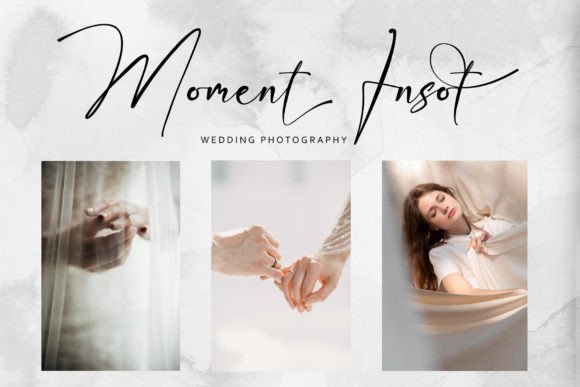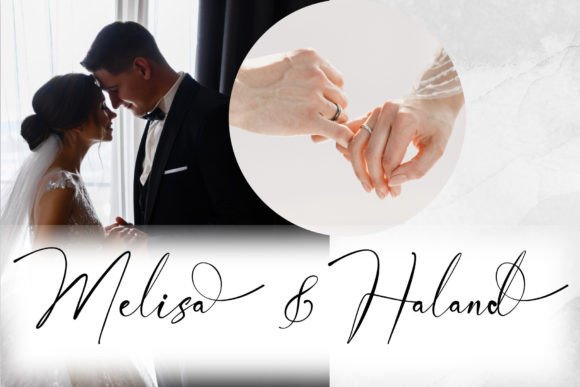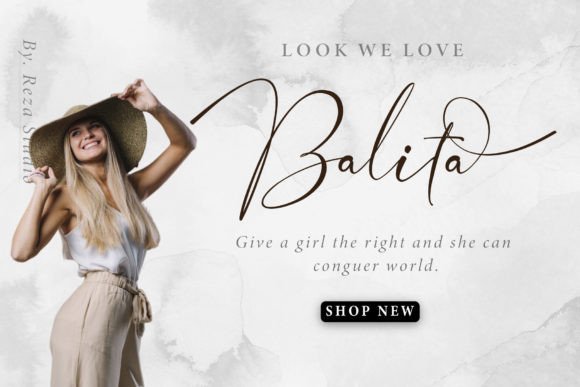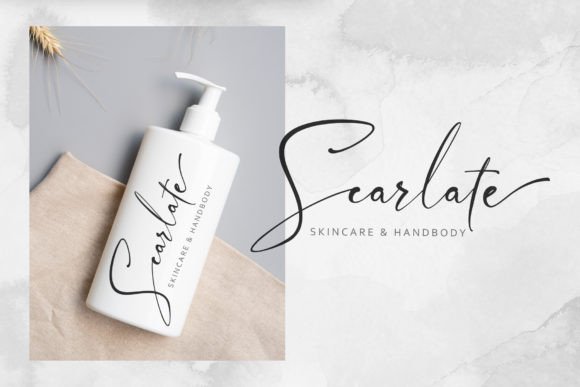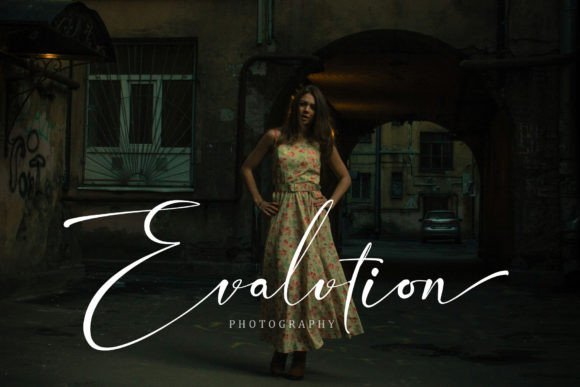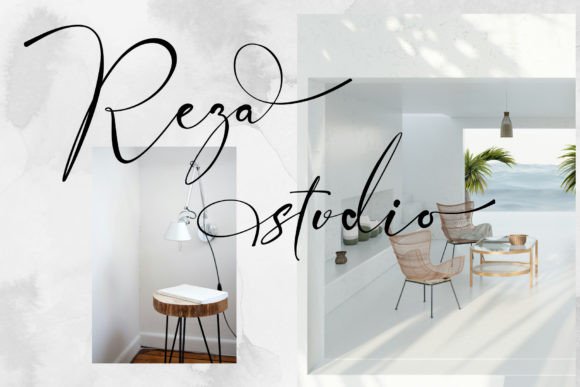
Introducing Britton Font: The Perfect Organic Handwritten Font for Your Creative Projects
In the world of typography, a good font can make all the difference in the success of a design project. Whether you’re a professional designer, crafty DIY enthusiast, or small business owner, finding the right font can elevate your branding, marketing materials, and overall visual identity. That’s where Britton Font comes in – an organic handwritten font that is modern, simple, and authentic.
What is Britton Font?
Britton Font is a unique and versatile typeface that is perfect for a wide range of applications, including branding, signature, wedding invitations, promotions, product packaging, and more. Its organic and handwritten nature gives it a personal touch that is sure to capture the attention of your audience. The font’s simplicity and modernity make it an excellent choice for designers and crafters looking for a clean and elegant look.
Key Features of Britton Font
- Organic and Handwritten: Britton Font has a natural, hand-crafted feel that sets it apart from more traditional fonts.
- Modern and Simple: Despite its organic nature, Britton Font has a sleek and contemporary look that will complement any design.
- Authentic: The font’s unique character and charm make it perfect for brands and designers looking to add a personal touch to their work.
- Versatile: Britton Font can be used for a wide range of projects, from branding and marketing materials to wedding invitations and product packaging.
Why Choose Britton Font?
With so many fonts available, why choose Britton Font for your next project? Here are just a few reasons:
- Unique and Memorable: Britton Font’s distinctive look will help your brand or design stand out from the crowd.
- Easily Readable: Despite its handwritten nature, Britton Font is clear and easy to read, making it perfect for body text and headlines.
- Flexible: Britton Font can be used in a variety of contexts, from digital media to print materials.
- High-Quality: Britton Font is a professionally designed typeface, ensuring a high level of quality and craftsmanship.
How to Use Britton Font in Your Design Projects
Britton Font is incredibly versatile and can be used in a wide range of design projects. Here are a few ideas to get you started:
- Branding and Logo Design: Use Britton Font to create a unique and memorable logo for your brand.
- Wedding Invitations and Stationery: Add a personal touch to your wedding invitations, stationery, and other paper goods with Britton Font.
- Product Packaging: Use Britton Font to create eye-catching and distinctive product packaging that stands out on store shelves.
- Marketing Materials: Incorporate Britton Font into your marketing materials, such as brochures, flyers, and posters, to add a touch of personality and whimsy.
In conclusion, Britton Font is a unique and versatile typeface that is perfect for designers, crafters, and small business owners looking for a modern, simple, and authentic font. Its organic and handwritten nature makes it perfect for a wide range of applications, from branding and marketing materials to wedding invitations and product packaging. With its high-quality design and flexibility, Britton Font is sure to become a go-to font in your design arsenal.